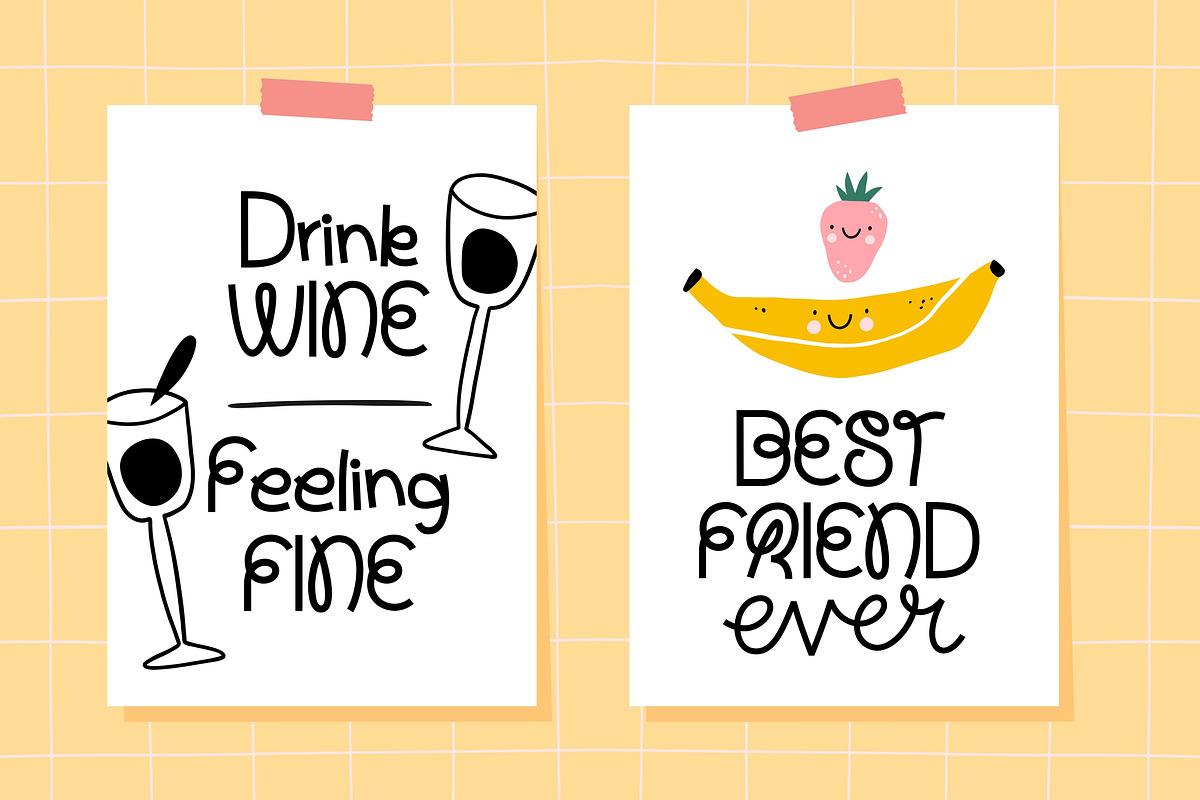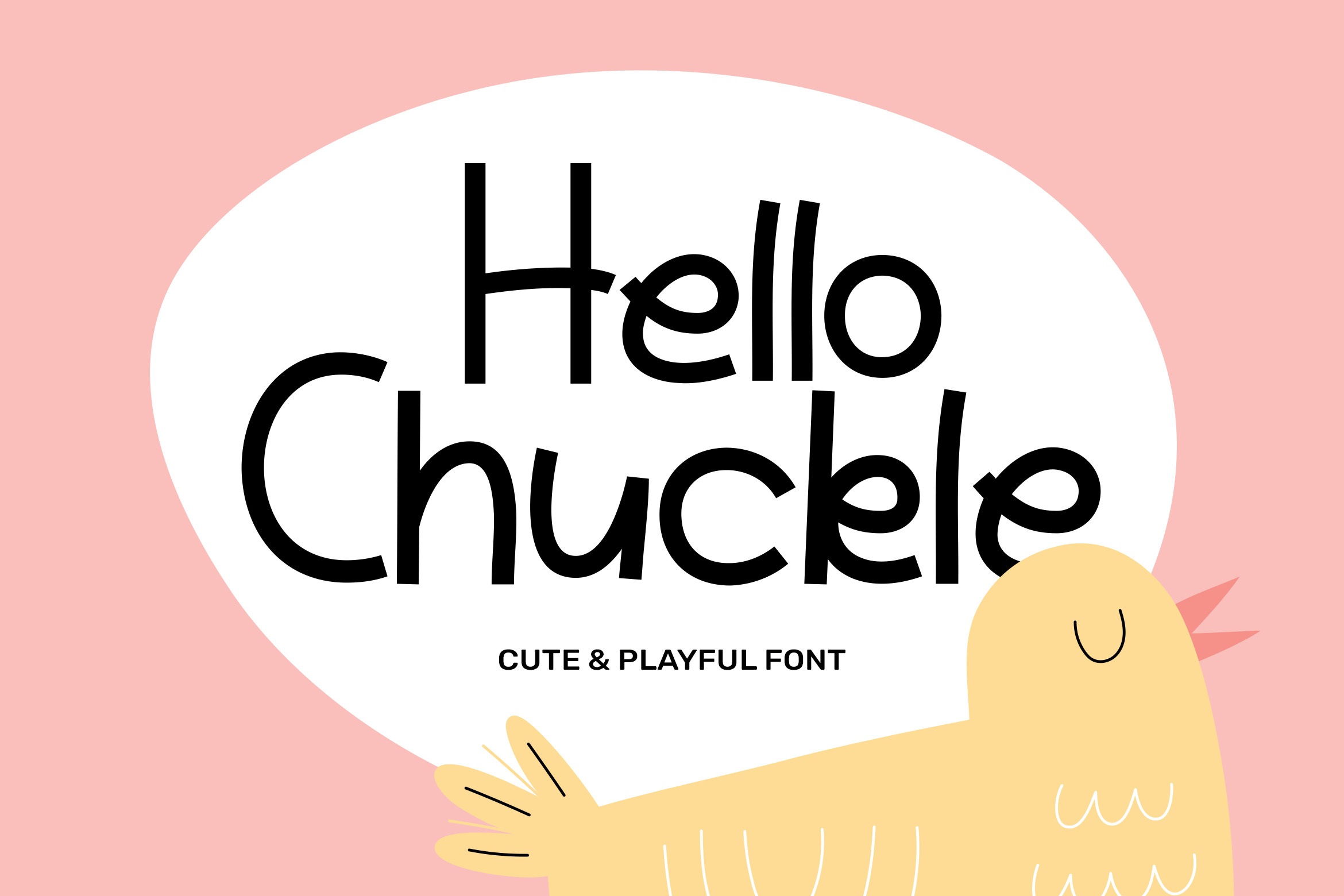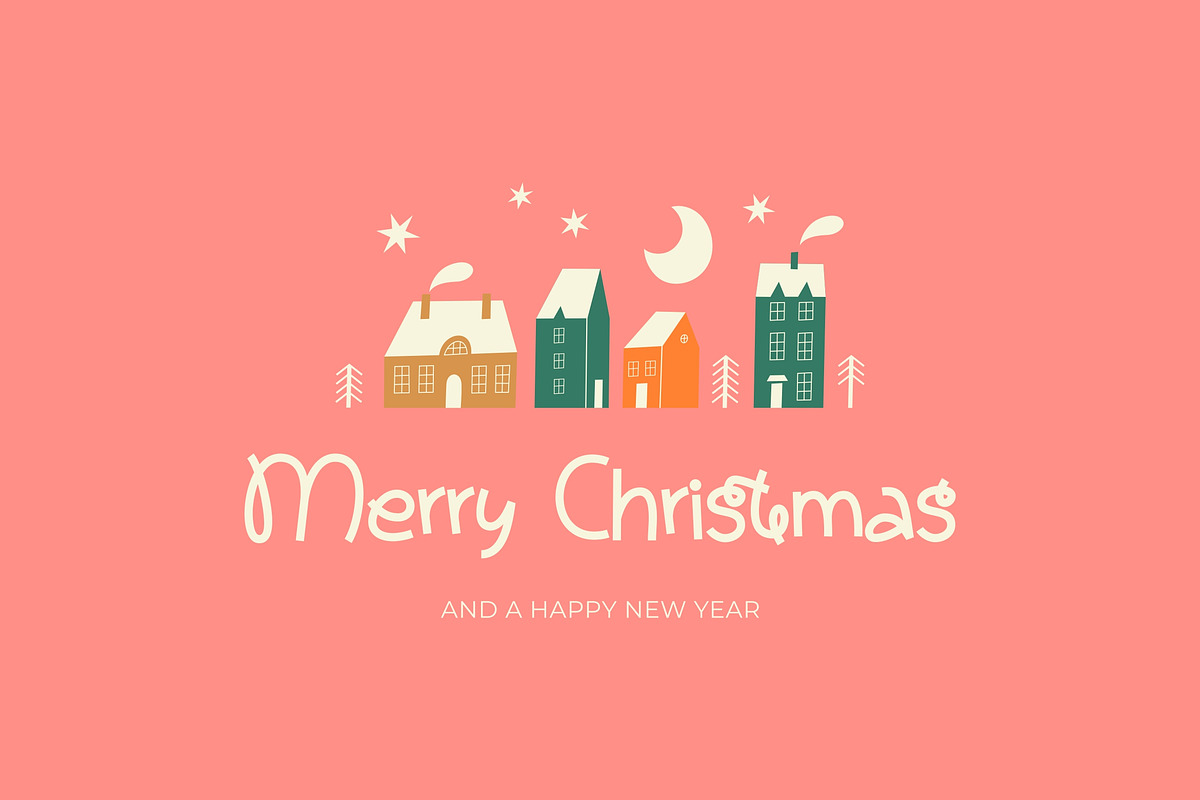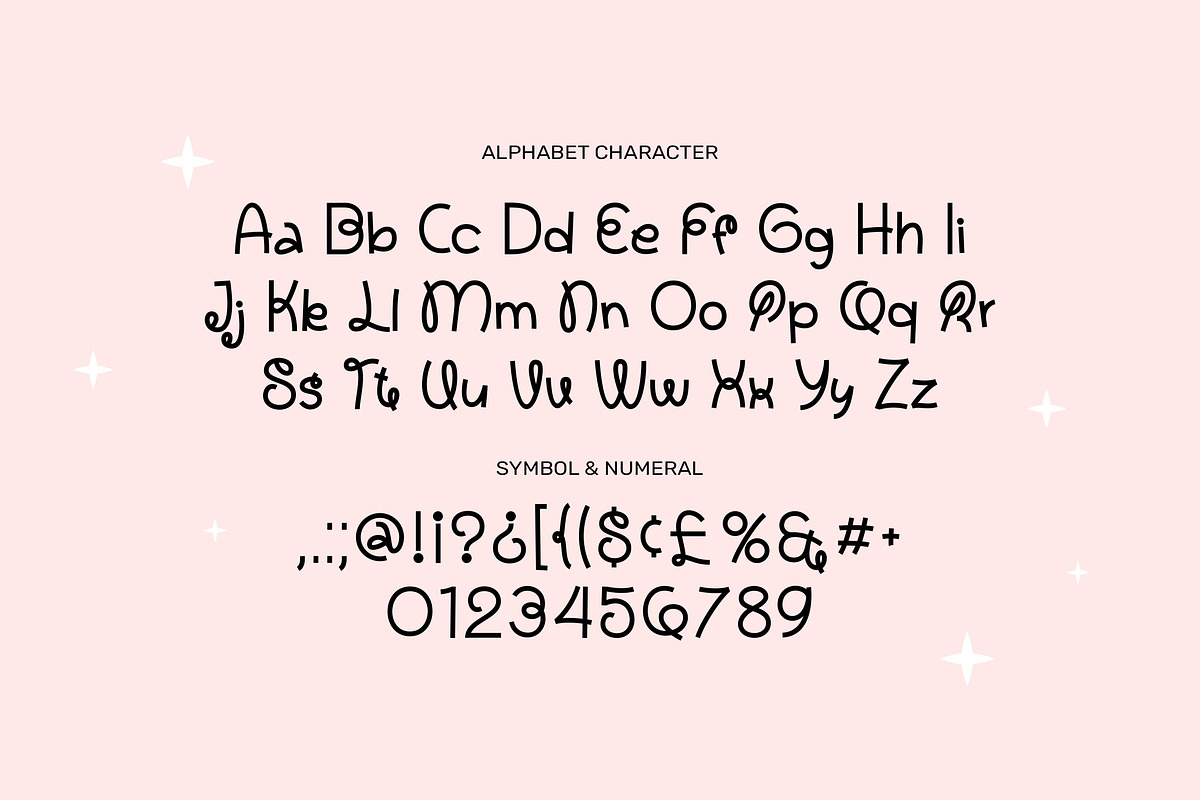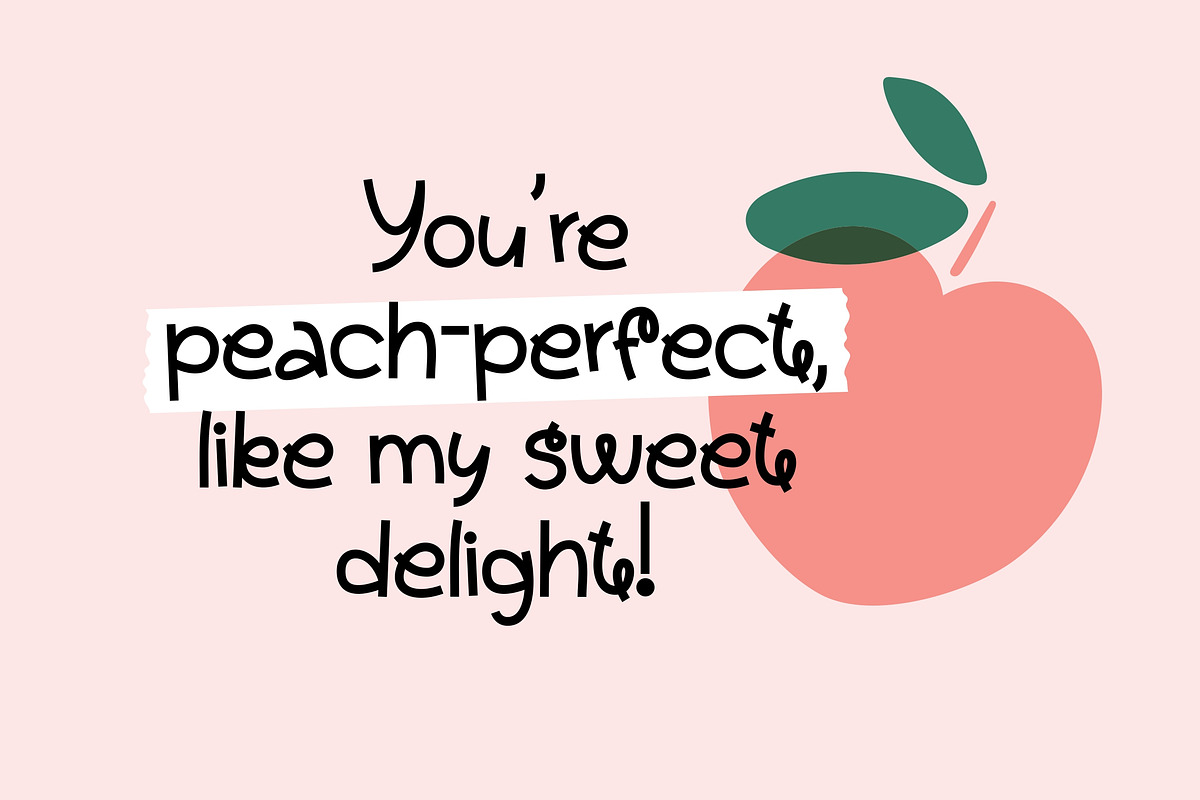
Hello Chuckle - Sweet Playful Font
Hello Chuckle is a cute and playful font, characterized by its rounded, uneven strokes. It evokes a sense of joy and friendly, making it perfect for children's or romantic design, such as greeting cards, fun branding, posters, children's books, and cheerful designs.
- Punctuation, Alternates and, Ligatures
- Number and Symbol